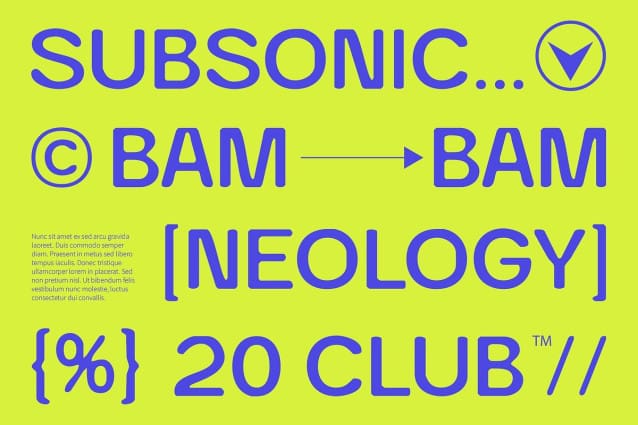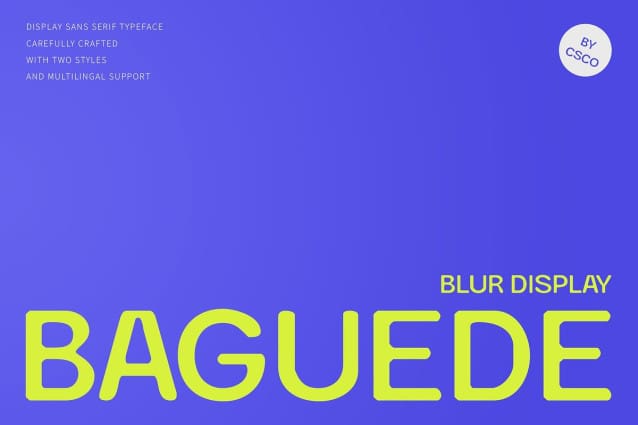
Baguede Blur Font
Baguede Blur Font is a modern sans serif font that combines a grotesque style with a distinctive blur effect, offering a visually captivating experience. Its design showcases sharp lines and balanced proportions, embodying a clean and contemporary aesthetic that speaks to the minimalist trend in modern typography.
Dynamic Design with a Soft Touch The font’s grotesque characteristics provide a sense of uniqueness, while the applied blur effect introduces a dynamic and soft touch. This interplay creates visual depth and intrigue, making the text not just legible but also engaging. The result is a font that stands out on the page, inviting viewers to explore its design further.
Versatile Applications for Contemporary Designs Baguede Blur is incredibly versatile, making it suitable for a variety of design applications. Whether used in advertisements, posters, or digital media, this font effectively captures attention without sacrificing readability. Its modern design is perfect for projects that aim to convey a stylish and innovative message, appealing to contemporary audiences.
Conveying Messages with Modern Style The combination of grotesque design elements and the subtle blur effect ensures that Baguede Blur delivers messages with both clarity and flair. It is particularly effective in designs where a fresh, modern vibe is essential, making it an excellent choice for branding, marketing campaigns, and creative projects that demand a unique visual identity.